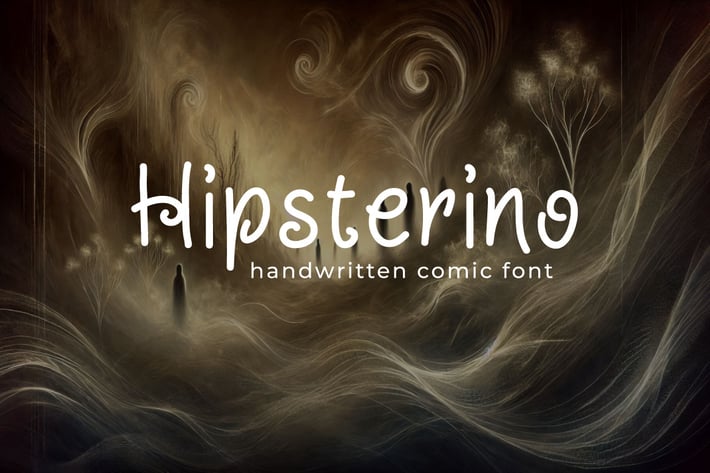
Hipsterino - Handeritten Comic Font
Meet Hipsterino, the playful and lively handwritten comic font that adds a splash of personality to any project! With its quirky and bold strokes, Hipsterino is perfect for designers looking to bring a fun, contemporary vibe to their work. This font captures the essence of a modern comic style, making it ideal for eye-catching headlines, comics, posters, social media graphics, children’s books, and more.
Whether you're creating vibrant promotional materials, engaging social media content, or unique branding, Hipsterino is here to elevate your work with its fresh, youthful energy.